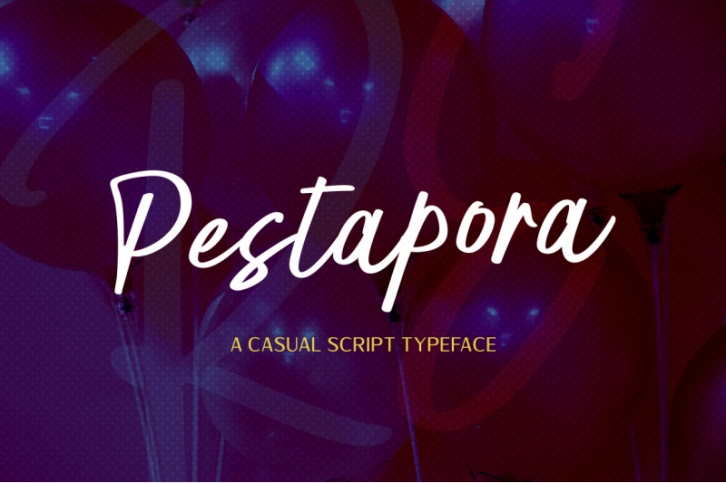
Pestapora - A cheerful and spontaneous handwriting font. Based on markers that are designed in such a way as to have an authentic and personal impression but are suitable to be applied to various design needs; posters, headline, logotype, packaging design, t-shirt, invitation etc.
Pestapora comes in two versions:
- Pestapora Regular: a handwritten script font containing upper & lowercase characters, numerals, and a large range of punctuation.
- Pestapora Alt: this is the second version of Pestapora, with a completely new set of both upper and lowercase characters.